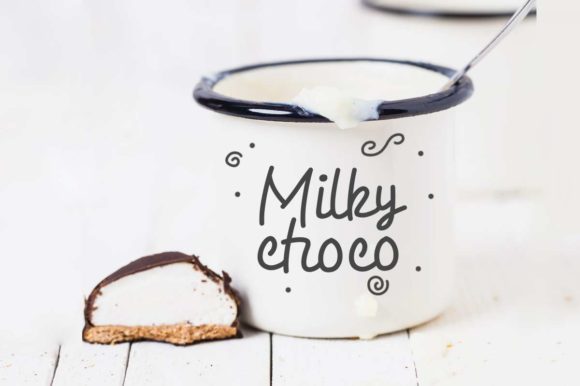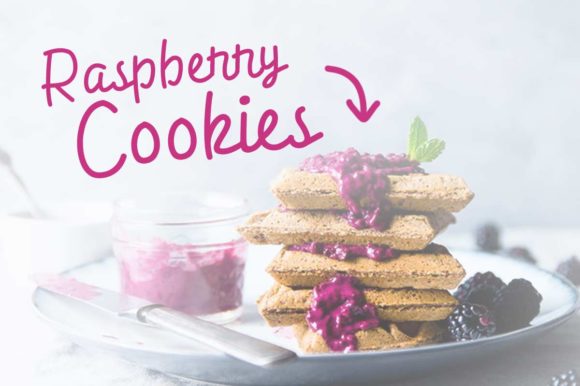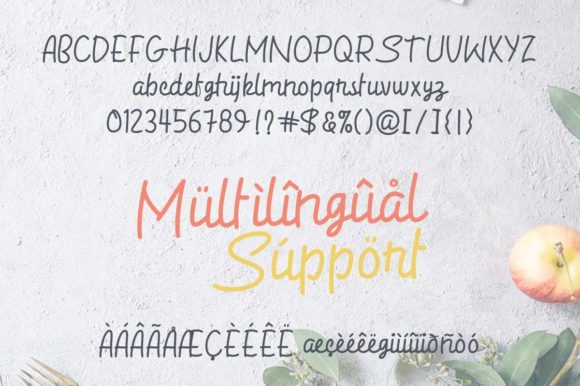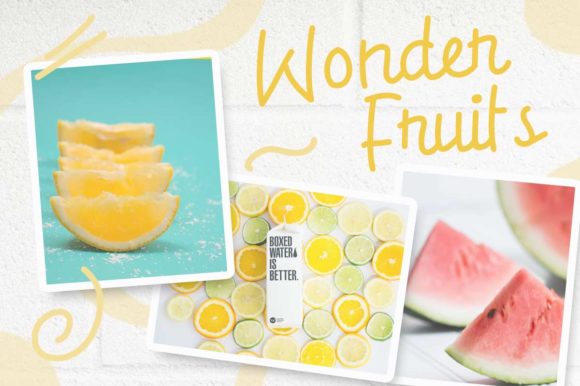
Introduction to Fruitel Font Font
Fonts play a crucial role in design, and the Fruitel Font font is a typeface that brings both character and versatility to any project. Whether you’re working on a branding project, a website, or a print design, the Fruitel Font font offers a unique style that can elevate your work.
| 📌 Font Name | Fruitel Font |
| 👤 Author | Trim Studio |
Fall in love with this simple, yet elegant display font.
Fruitel will turn any design project into a stand out .
Key Features of Fruitel Font Font
Why Choose Fruitel Font Font?
The Fruitel Font font is more than just a typeface – it’s a design tool that helps you communicate your message with style and clarity. Its unique character set and versatile design make it suitable for a wide range of applications, from elegant invitations to bold headlines.
With its carefully crafted letterforms and balanced proportions, the Fruitel Font font ensures readability and visual appeal across all mediums.
What makes Fruitel Font font special?
The Fruitel Font font stands out with its unique design, exceptional readability, and versatility across various design applications.